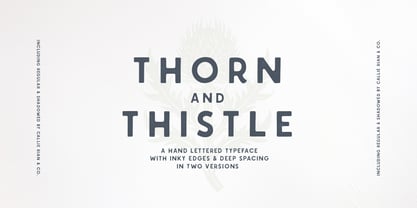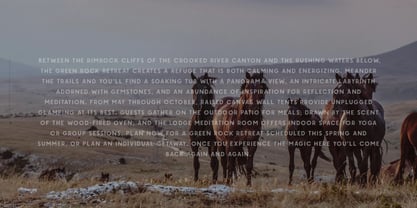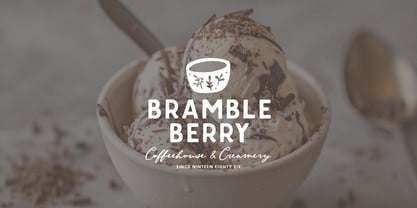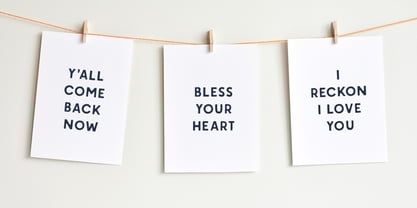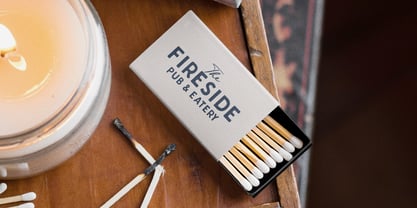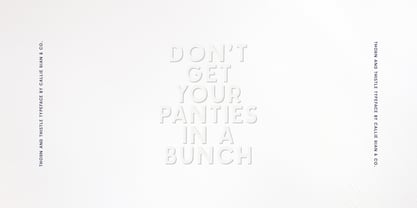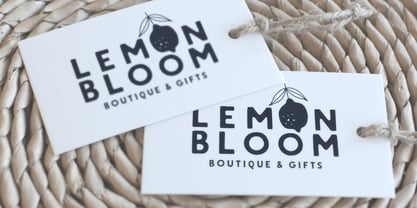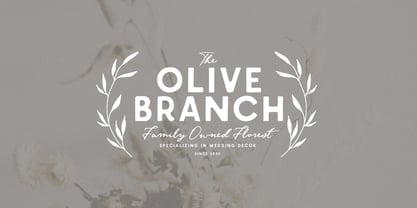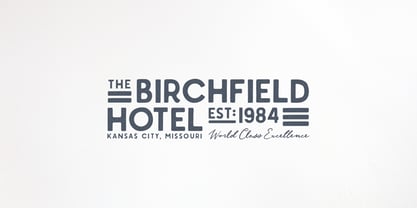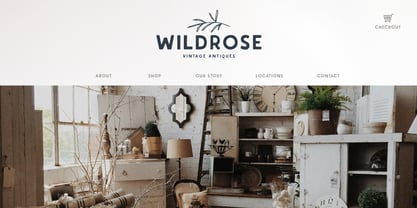
Thorn And Thistle
The Thorn And Thistle Font Family was designed by Callie Hegstrom and published by Make Media Co. Thorn And Thistle contains 2 styles and family package options. More about this family
Introducing Thorn & Thistle, a hand drawn Sans Serif family with subtlety-inked corners in 2 versions; regular and shadowed. Thorn & Thistle is the trendy, classic beauty you need on magazines, headlines, logos, packaging, quotes and logos.